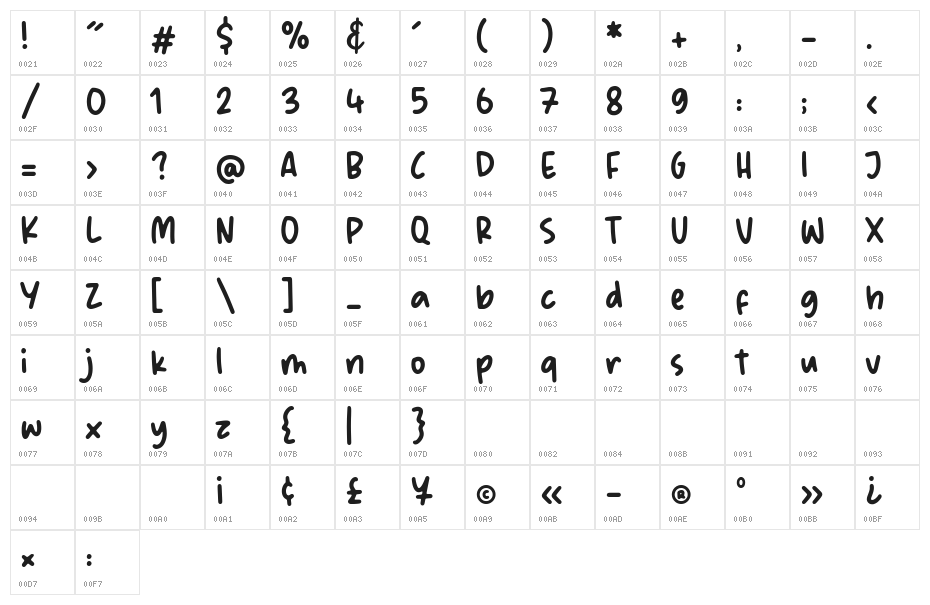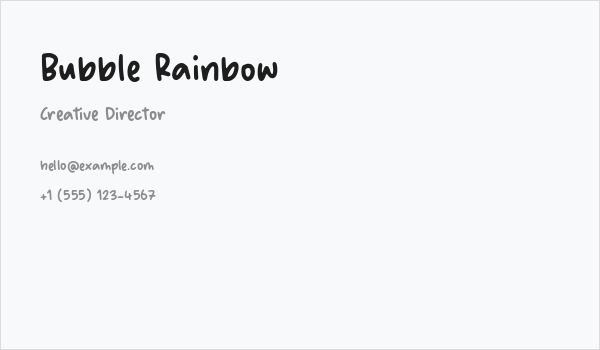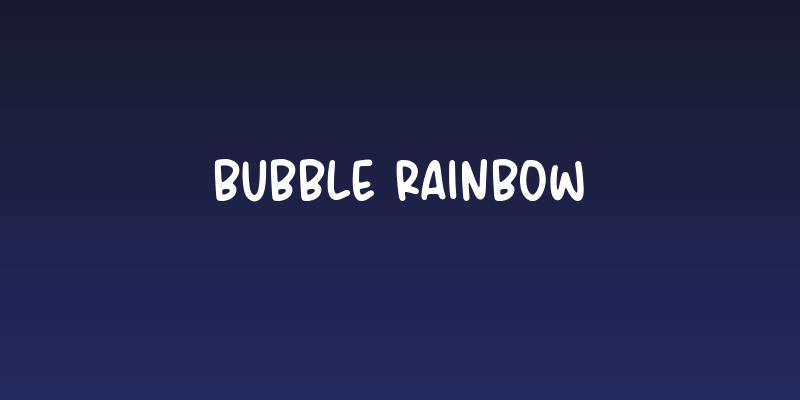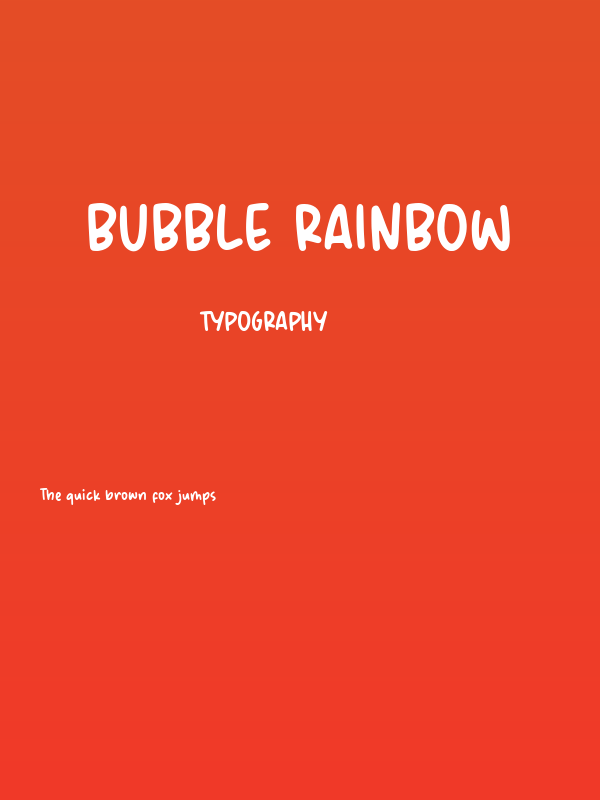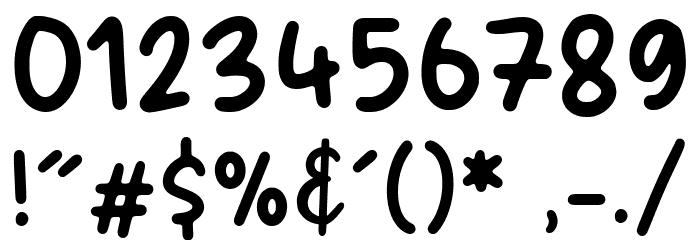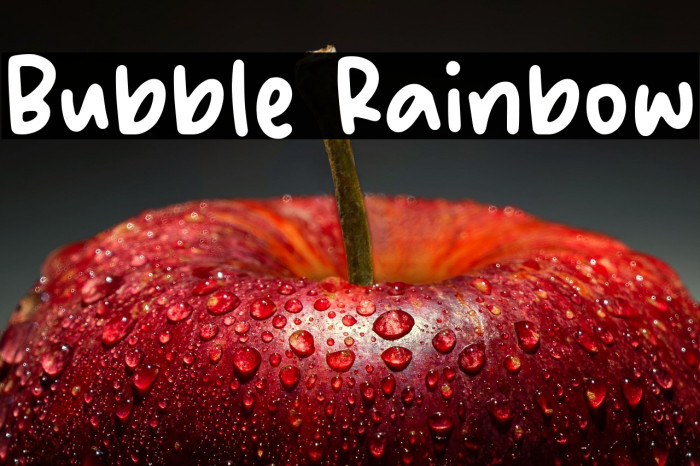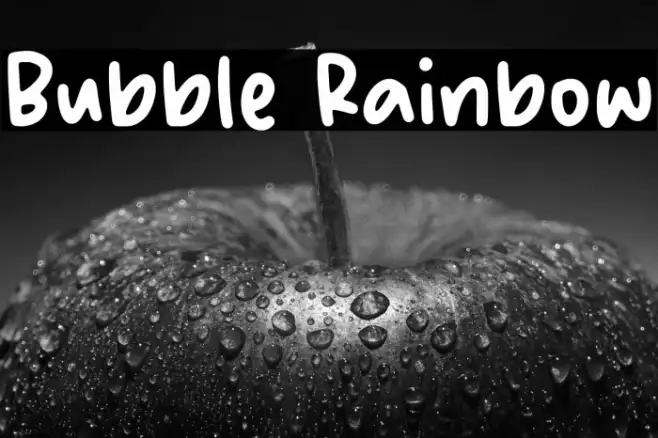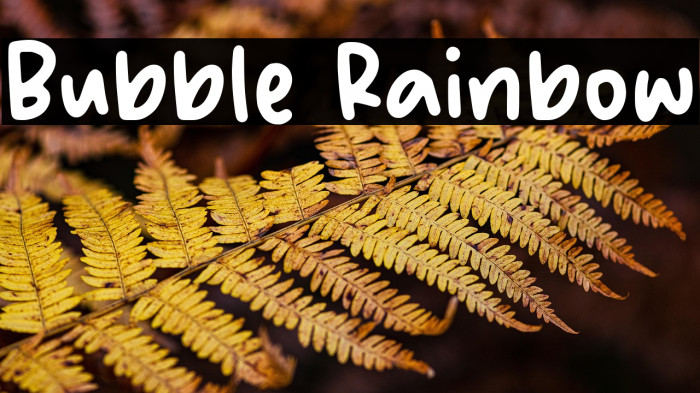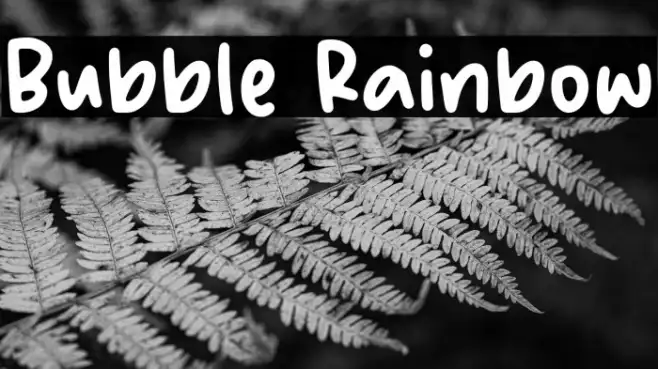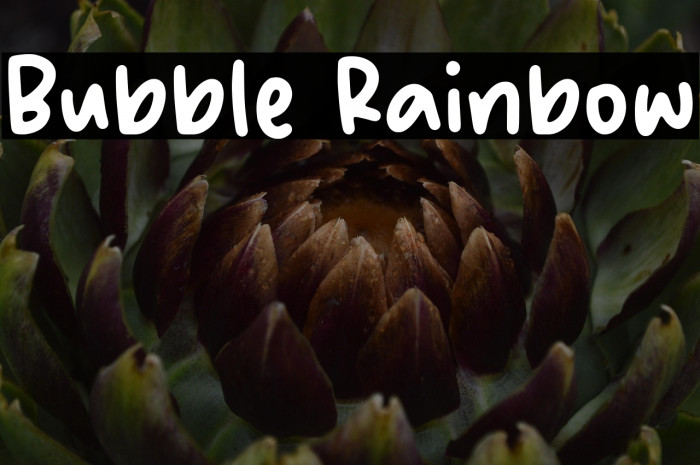
Bubble Rainbow Font
Bubble Rainbow Description
This playful and whimsical font features rounded, bubbly characters that exude a sense of fun and creativity. The letters are bold and slightly irregular, giving them a hand-drawn appearance that adds a personal touch. The uppercase and lowercase letters maintain a consistent style, with smooth curves and a friendly demeanor. Numbers and special characters follow the same design principles, ensuring a cohesive look across all text elements. The font's unique style makes it ideal for projects that require a lighthearted and approachable aesthetic.
| Proposed Projects | Great for children's books, playful branding, party invitations, and creative posters. |